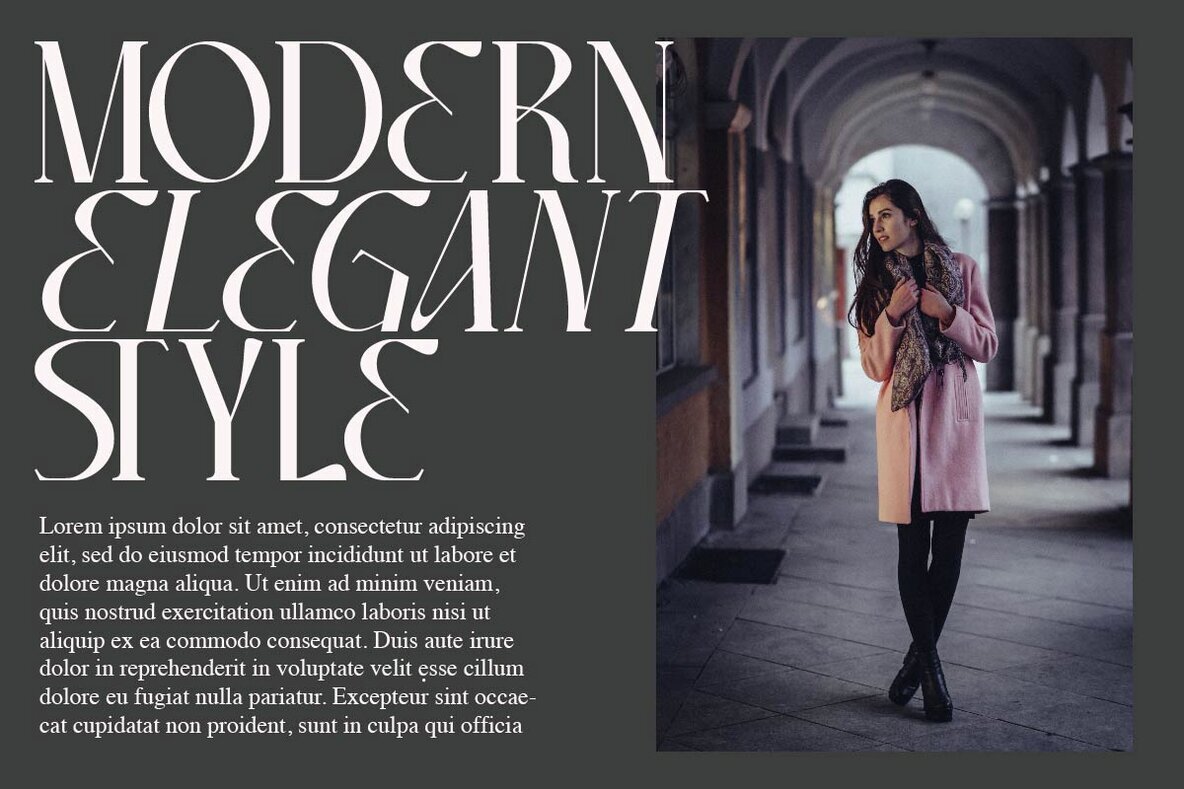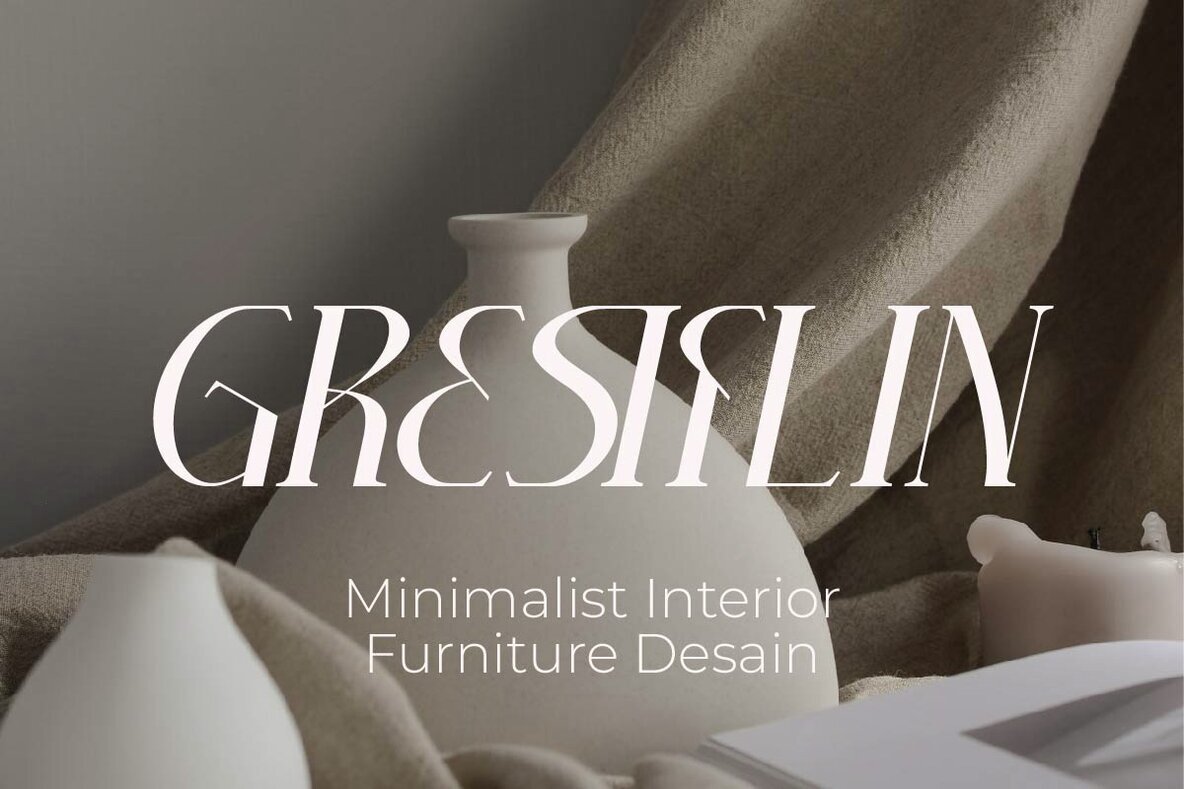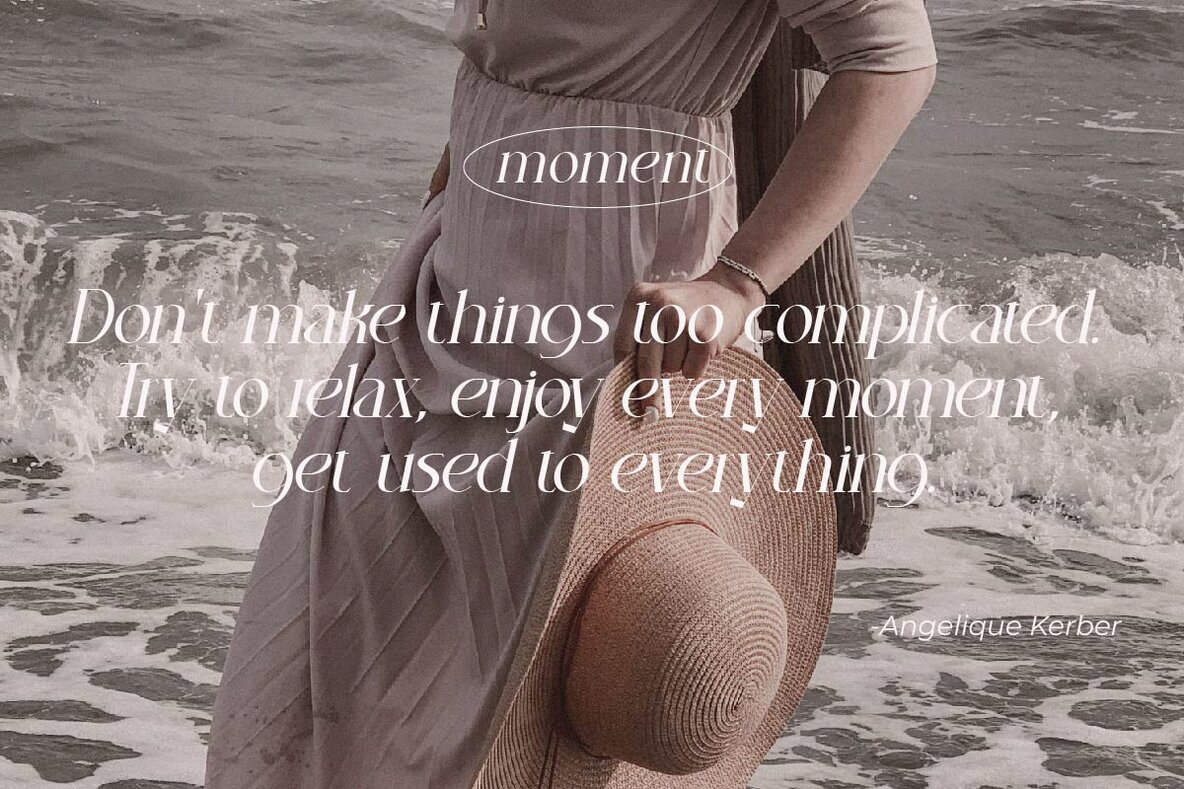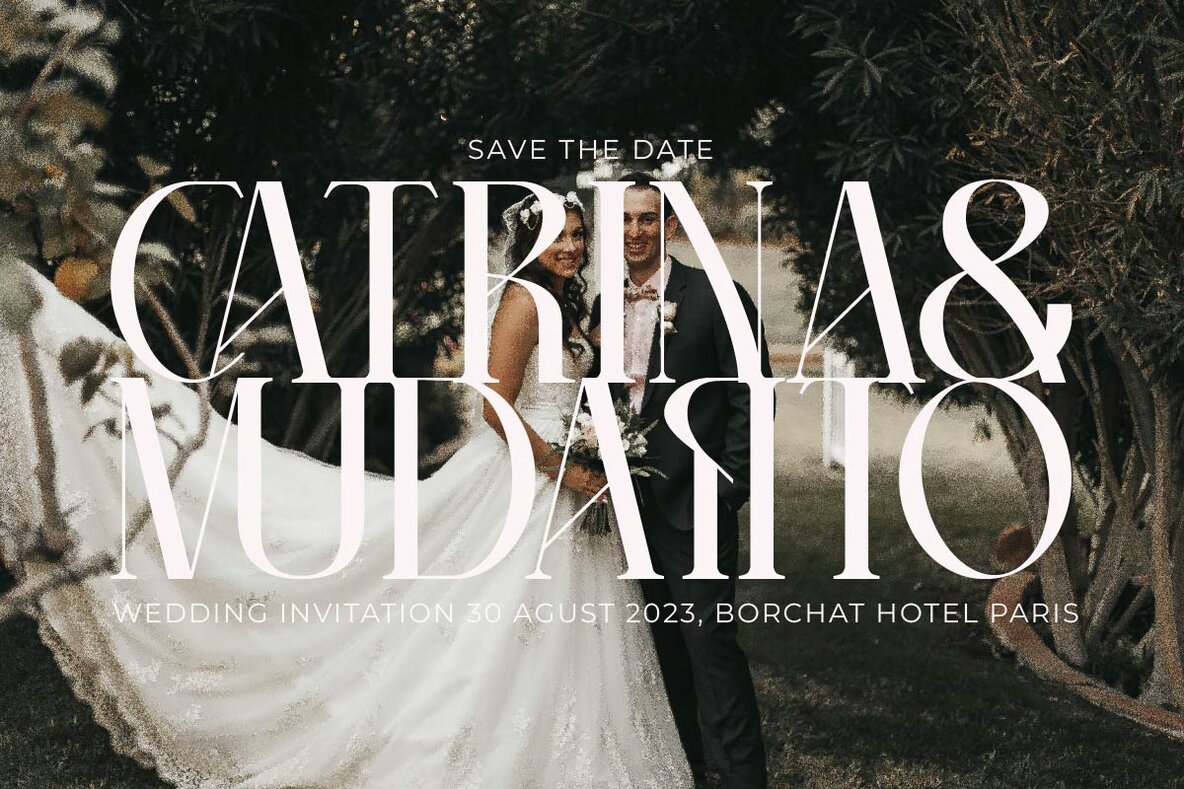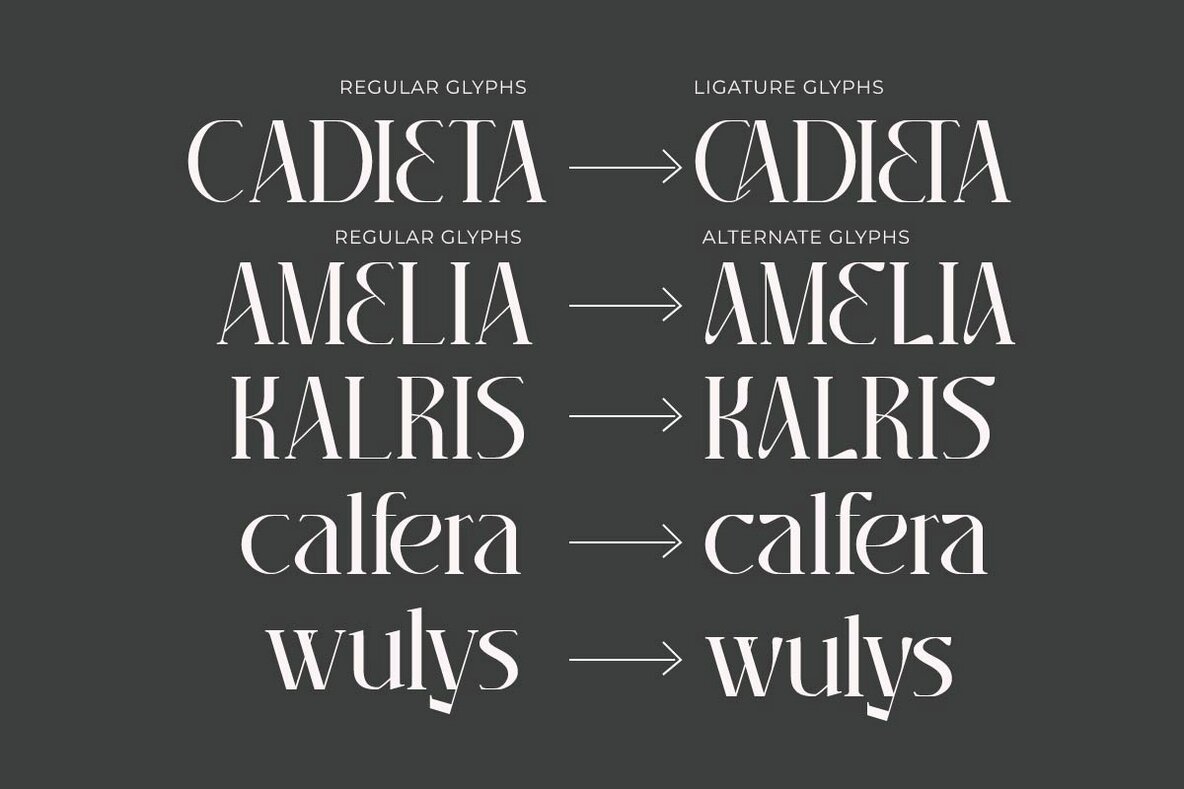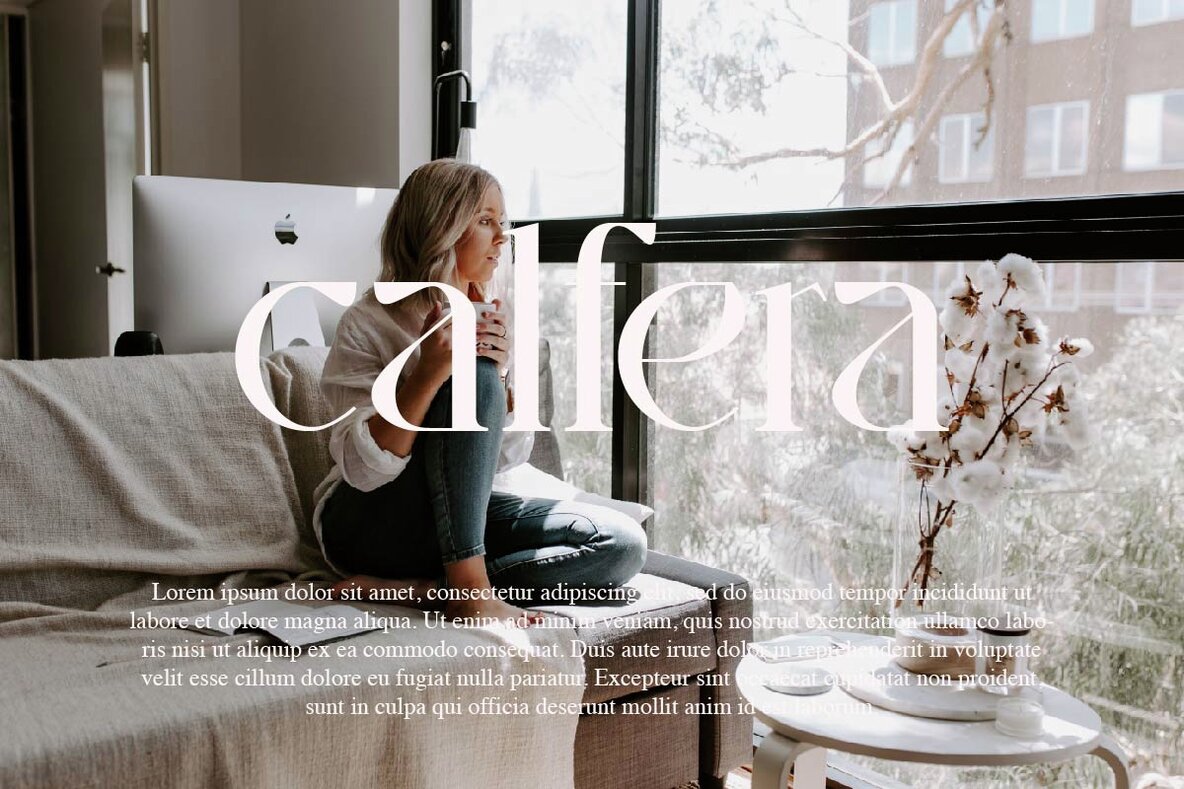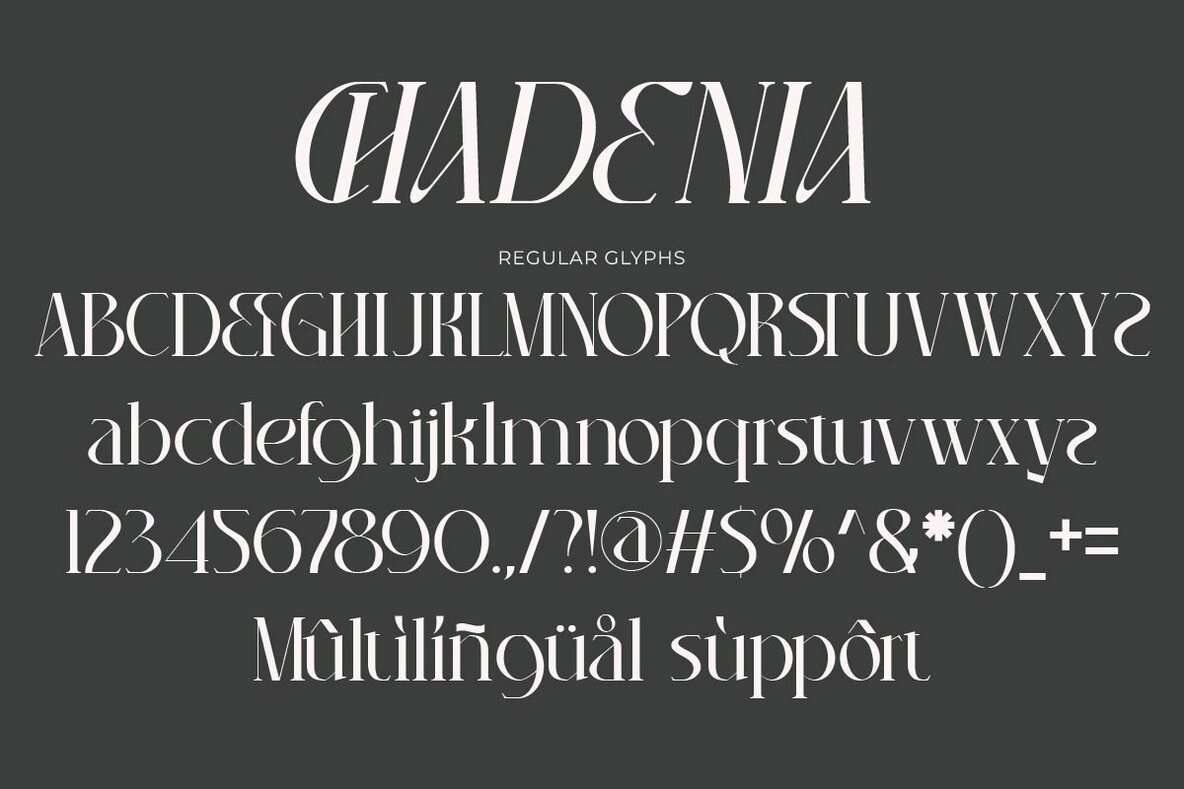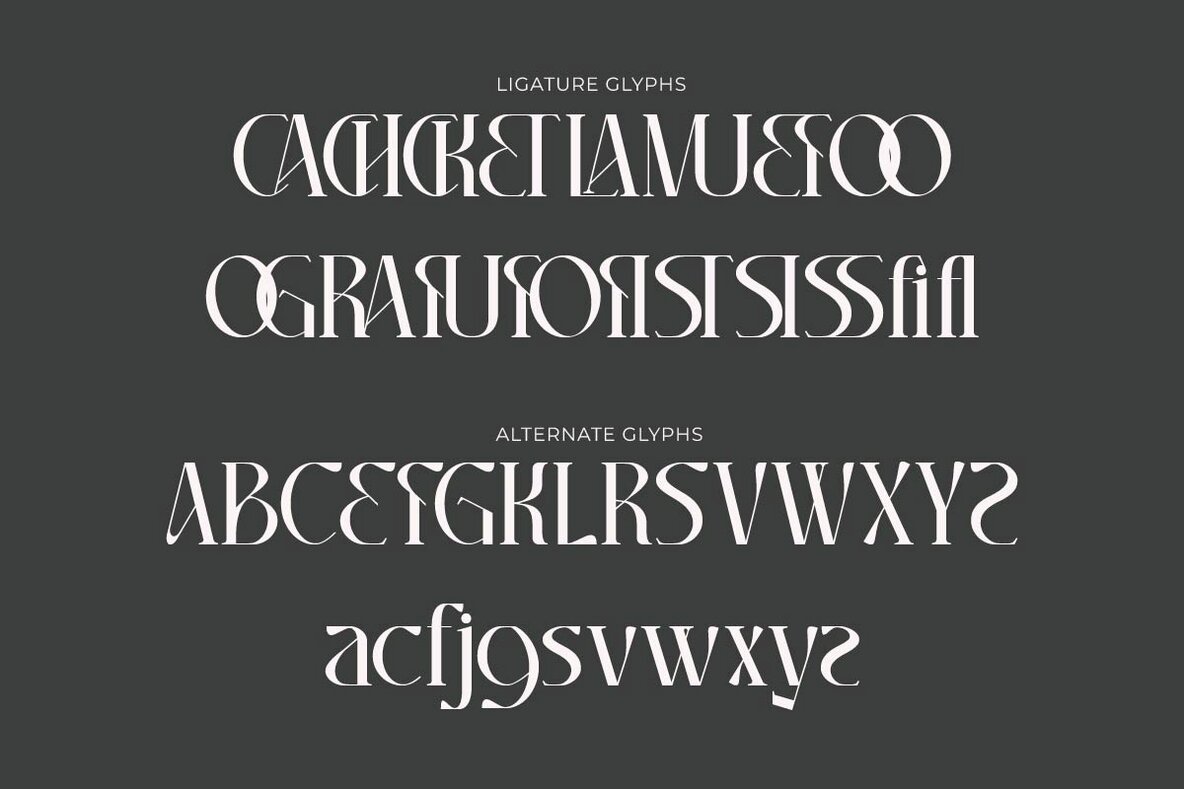
Chadenia Font
Chadenia is a modern serif typeface featuring beautiful alternates, special glyphs, ornaments, and multilingual support. This versatile font is suitable for both large and small sizes, making it perfect for editorial projects, logo design, clothing branding, product packaging, magazine headers, and as a stylish text overlay on images.Chadenia: Elegant Serif Font with Versatile Styling